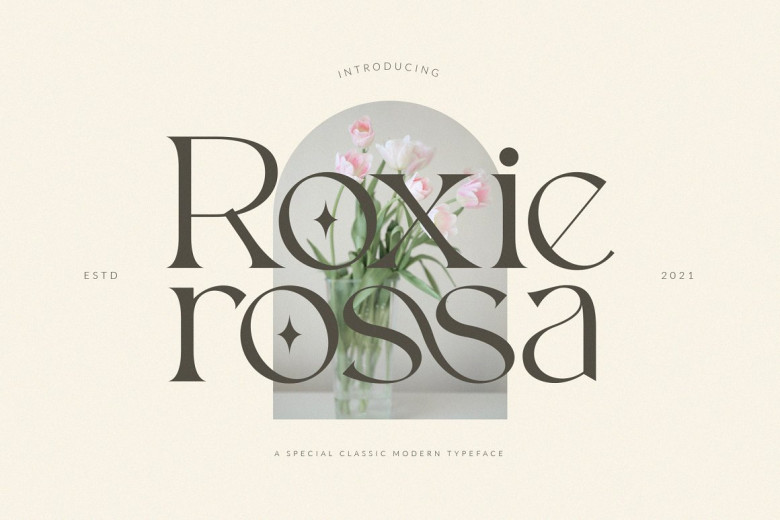
Roxie Rossa Font
Roxie Rossa Serif! Roxie Rossa Serif is an elegant and modern Sans Serif font that will enhance any design project. Both modern and nostalgic in appearance, it works beautifully for logos and magazines – ideal for logo design as well as magazine layout. Combined, ready for use in your next design project this font adds elegance, chicness, modernity to designs!
Roxie Rossa offers OpenType features, such as ligatures, alternate characters, numbers, punctuation and support for other languages.
Roxie Rossa Serif Font